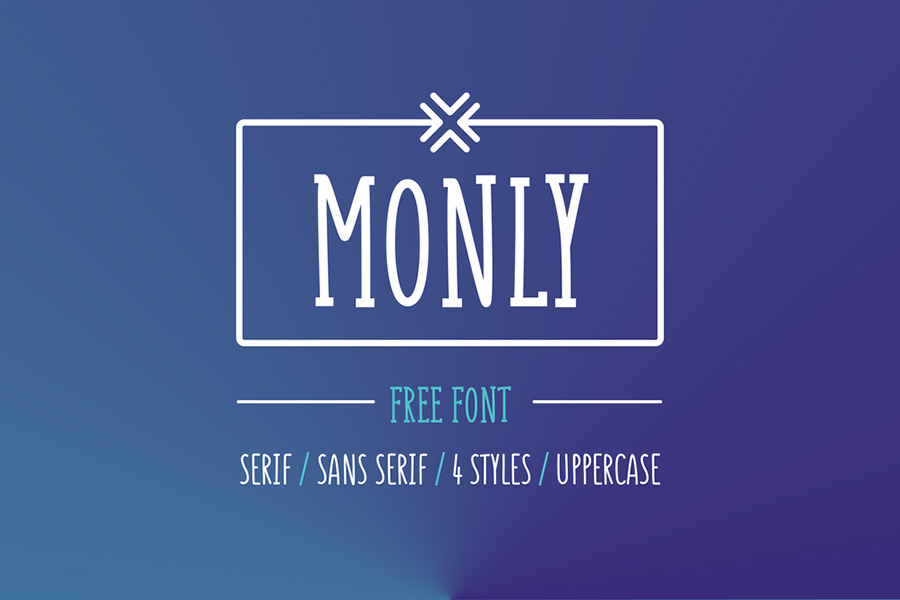
Monly – Free playful font in 4 styles
Monly is a free playful font in 4 styles. It is an easy to read typeface, the constructions is based on a single line curve all the way. Serif and Sans Serif font files are included. Monly is free to use on commercial and personal projects. The font is created and provided by Gatis WildOnes.